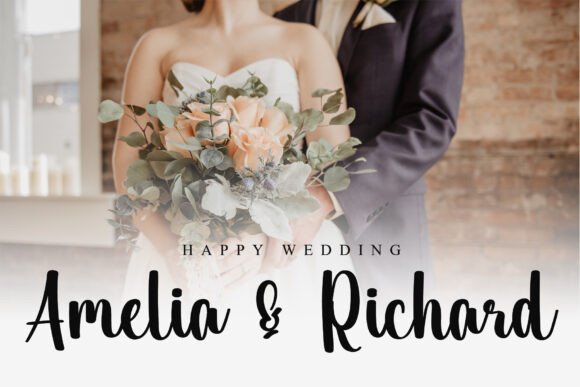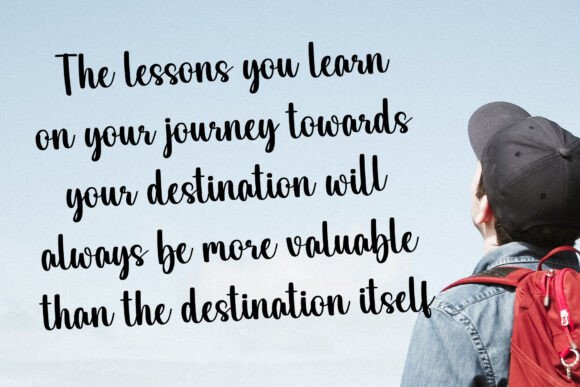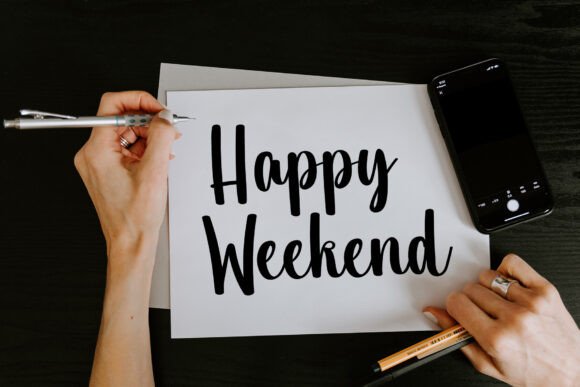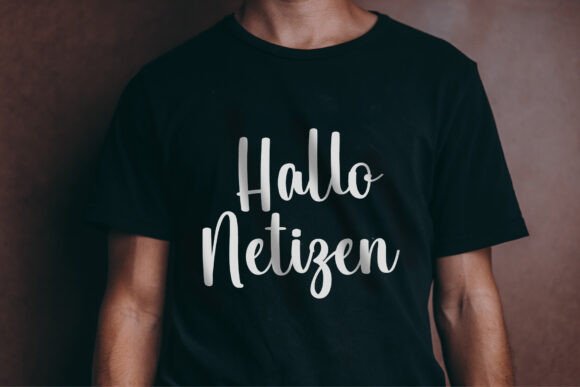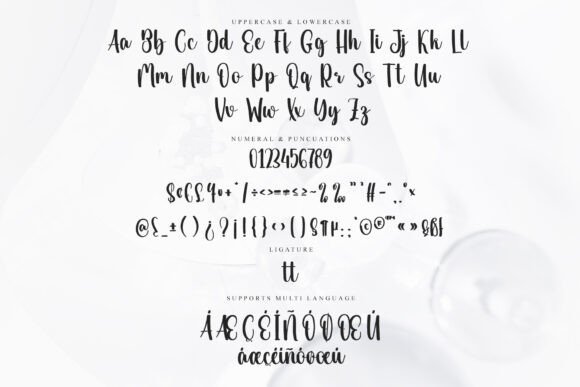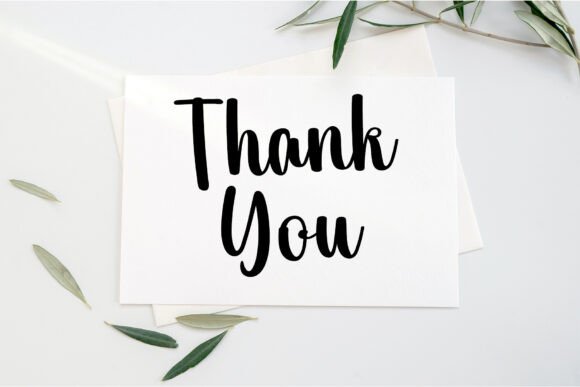
Introducing Freshly Font: Elevate Your Designs with Elegance
In the world of design, fonts play a pivotal role in conveying the essence and aesthetic of a project. Whether you’re crafting a logo, branding materials, or adding a personal touch to labels and watermarks, the right font can make all the difference. This is where Freshly Font comes into play – a stylish and dainty script font designed to infuse your projects with a touch of elegance and sophistication.
What is Freshly Font?
Freshly Font is a meticulously crafted script font that exudes charm and finesse. Its delicate strokes and beautiful swashes are perfect for designers and crafters looking to add a unique and luxurious feel to their work. Whether it’s for logos, branding projects, labels, photography, watermarks, special events, or any other project that calls for a beautiful script taste, Freshly Font is the ideal choice.
Key Features of Freshly Font
• PUA Encoded: Freshly Font is PUA (Private Use Area) encoded, which means you can easily access all the glyphs and swashes. This feature allows for greater flexibility and creativity in your designs, making it easier to customize and personalize your projects.
• Versatility: The font’s versatility makes it suitable for a wide range of projects. From professional branding and logos to more personal and creative endeavors like crafting and DIY labels, Freshly Font adapts seamlessly to various design needs.
• Elegant and Dainty: The elegant and dainty nature of Freshly Font ensures that your designs stand out with a touch of sophistication. Its script style is perfect for adding a personal and luxurious feel to any project.
Applications of Freshly Font
Freshly Font’s adaptability and aesthetic appeal make it an excellent choice for various applications:
• Logos and Branding: Create memorable and elegant logos that set your brand apart. Freshly Font’s unique style can help establish a sophisticated brand identity.
• Labels and Watermarks: Add a touch of elegance to your product labels or watermarks. This not only enhances the visual appeal but also adds a professional finish to your products or photographs.
• Photography: Use Freshly Font to add captions or watermarks to your photographs, giving them a personalized and stylish look.
• Special Events: For event planners and coordinators, Freshly Font can be used in invitations, menus, and other event materials to create a cohesive and luxurious feel.
Freshly Font offers several benefits for designers and crafters:
• Time-Saving: With its PUA encoding and extensive glyph library, designers can save time and focus on the creative aspect of their projects.
• Customization: The ease of accessing swashes and glyphs allows for high levels of customization, ensuring that each project is unique.
• Professional Finish: The font’s elegant style gives projects a professional and polished finish, which is crucial for client work or personal branding.
Freshly Font is more than just a script font – it’s a tool for designers and crafters to elevate their projects with elegance and sophistication. Its versatility, combined with its beautiful design and PUA encoding, makes it an invaluable asset for anyone looking to add a touch of luxury to their work. Whether you’re working on a professional project or a personal craft, Freshly Font is sure to inspire and enhance your creative endeavors.